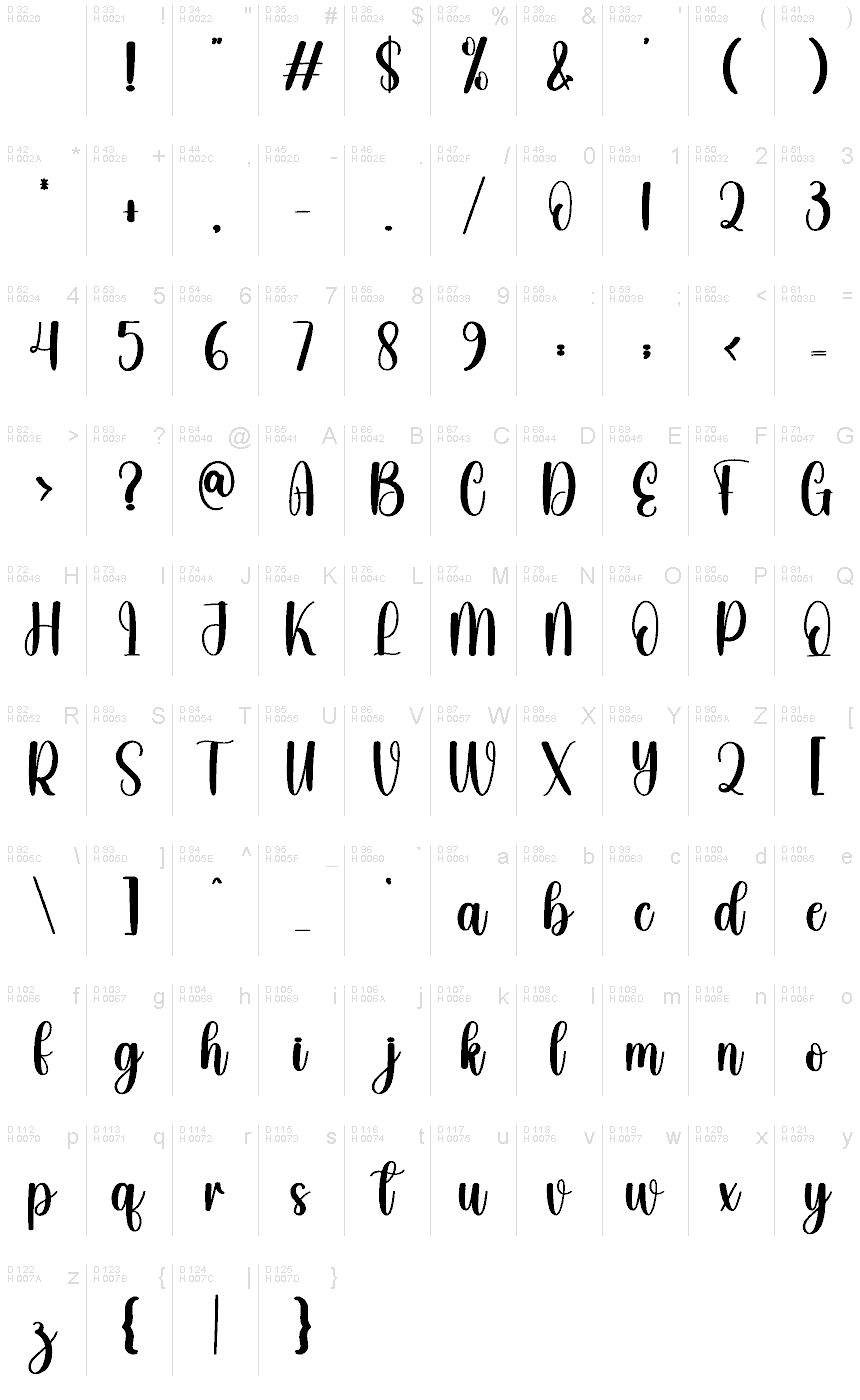
Singling
Singling font, designed by Scratchones, is a free handwritten font that exudes elegance and expressiveness. With a flowing and modern calligraphic style, it brings a sophisticated appeal to any project.